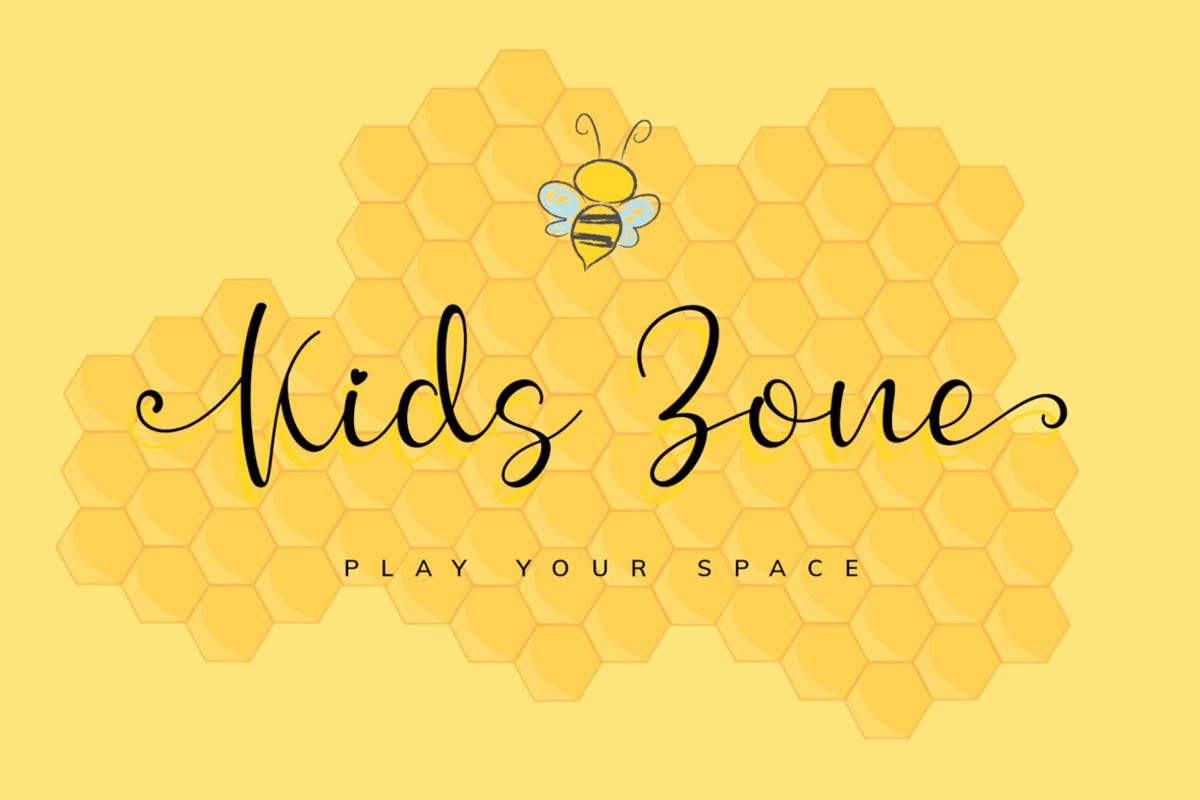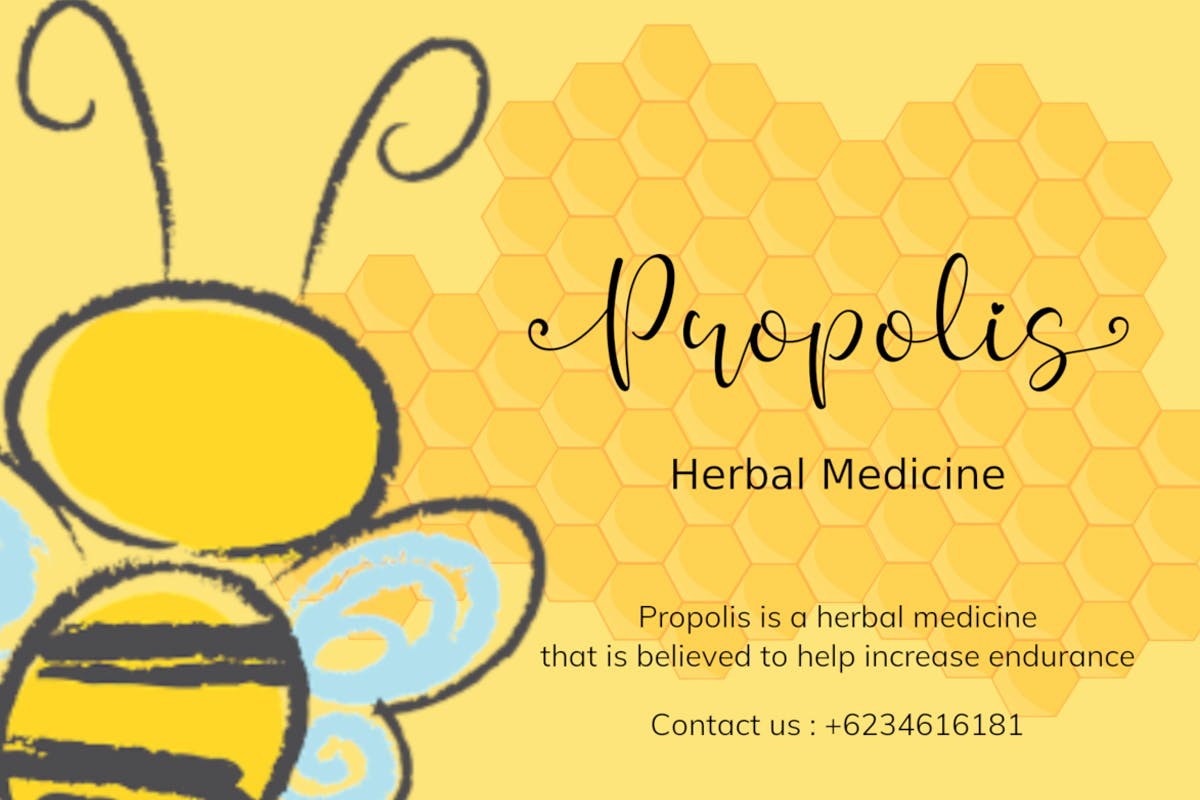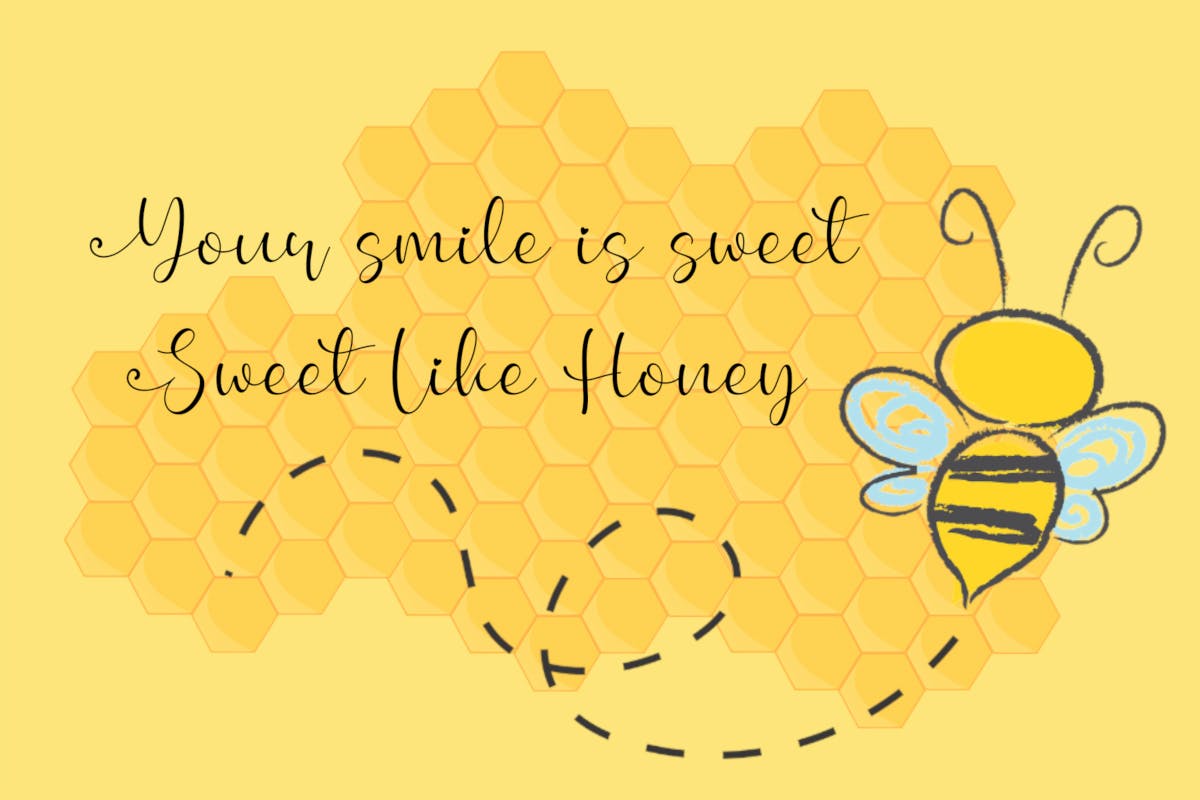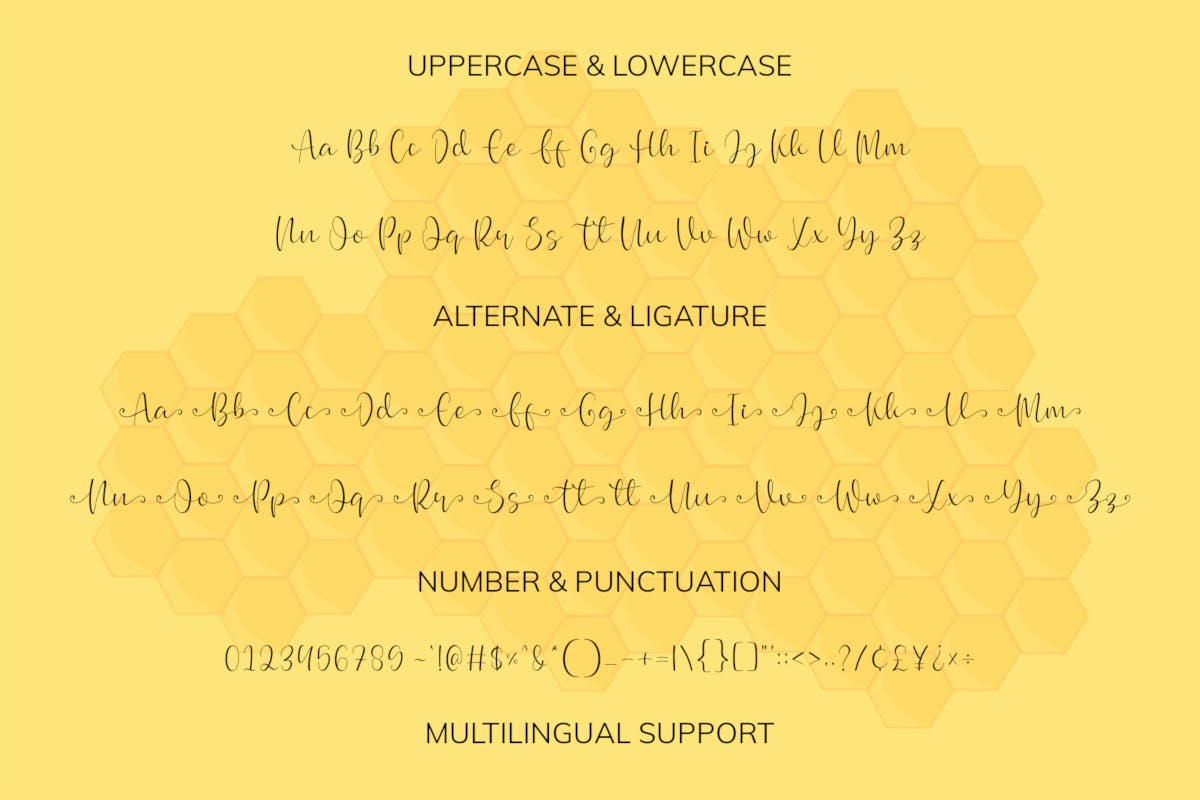
Free Demo Buttey Honey Handlettering Font
Free Demo Buttey Honey Handlettering Font is a beautiful hand-lettering type work from AV Type. With its naturally waving character to make your works look professional. It will give the elegant touch and make your design look even more beautiful. Therefore, this free font is perfect for wedding invitation,  T-Shirt, Logo, or any design that you ever think of. So, download now and have fun creating, but you only get a personal license. So, if you more features such as ligatures, commercial use, and other features, buy the premium version.